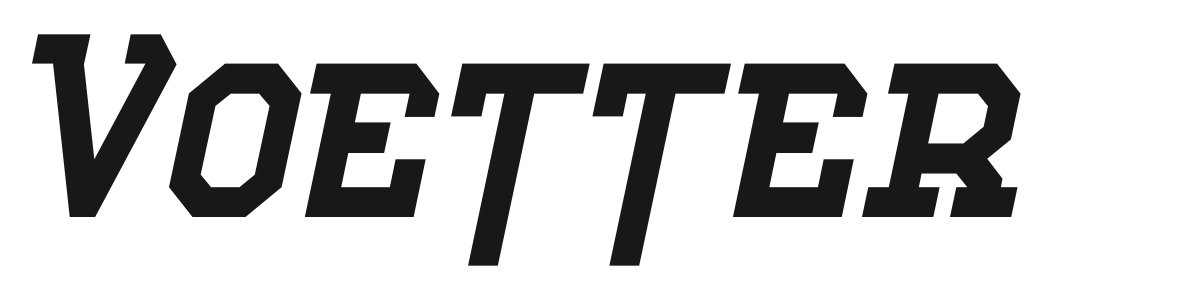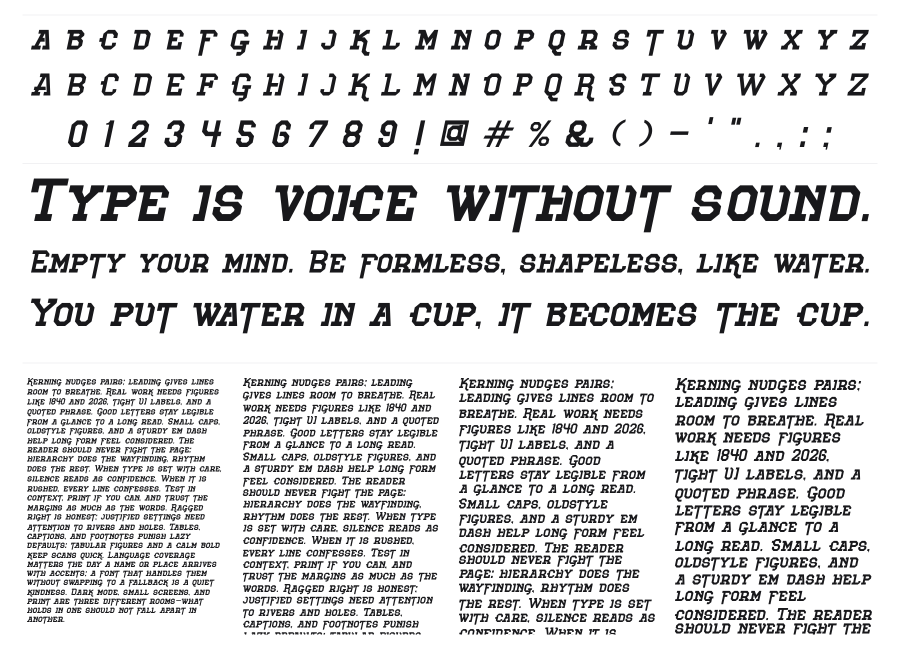
Voetter
Voetter is a bold condensed slab-serif with an italic lean and thick, blocky serifs that give it a distinctly athletic character. The near-monoweight strokes and squared construction pull from 19th-century Americana display type, landing somewhere between a sports jersey and a vintage poster. It works well at large sizes where that weight and confidence can fully land.